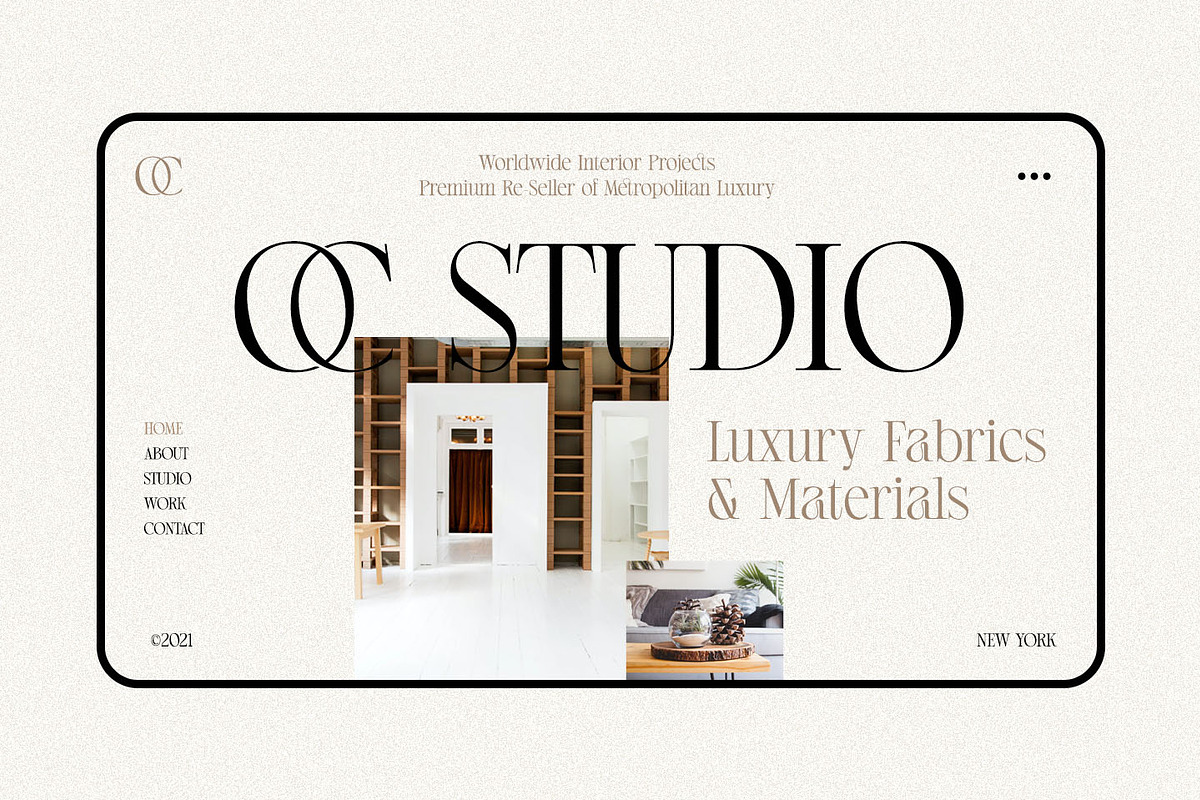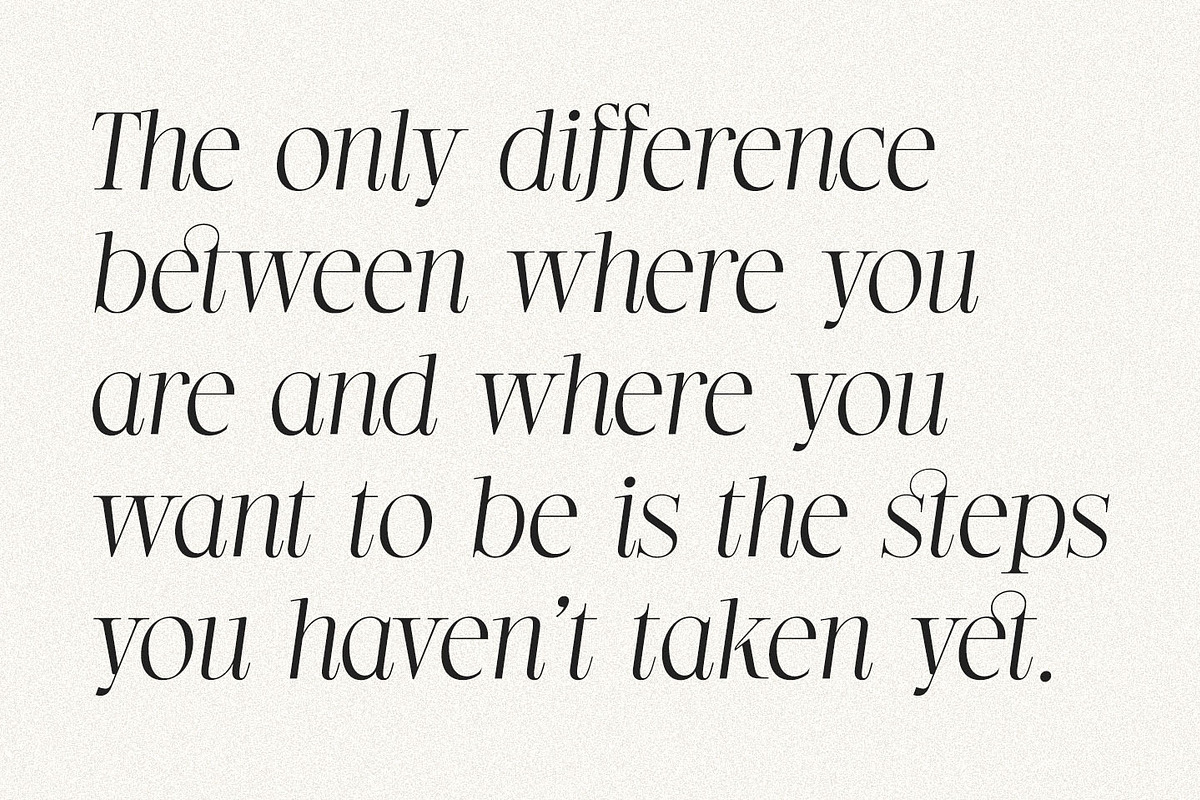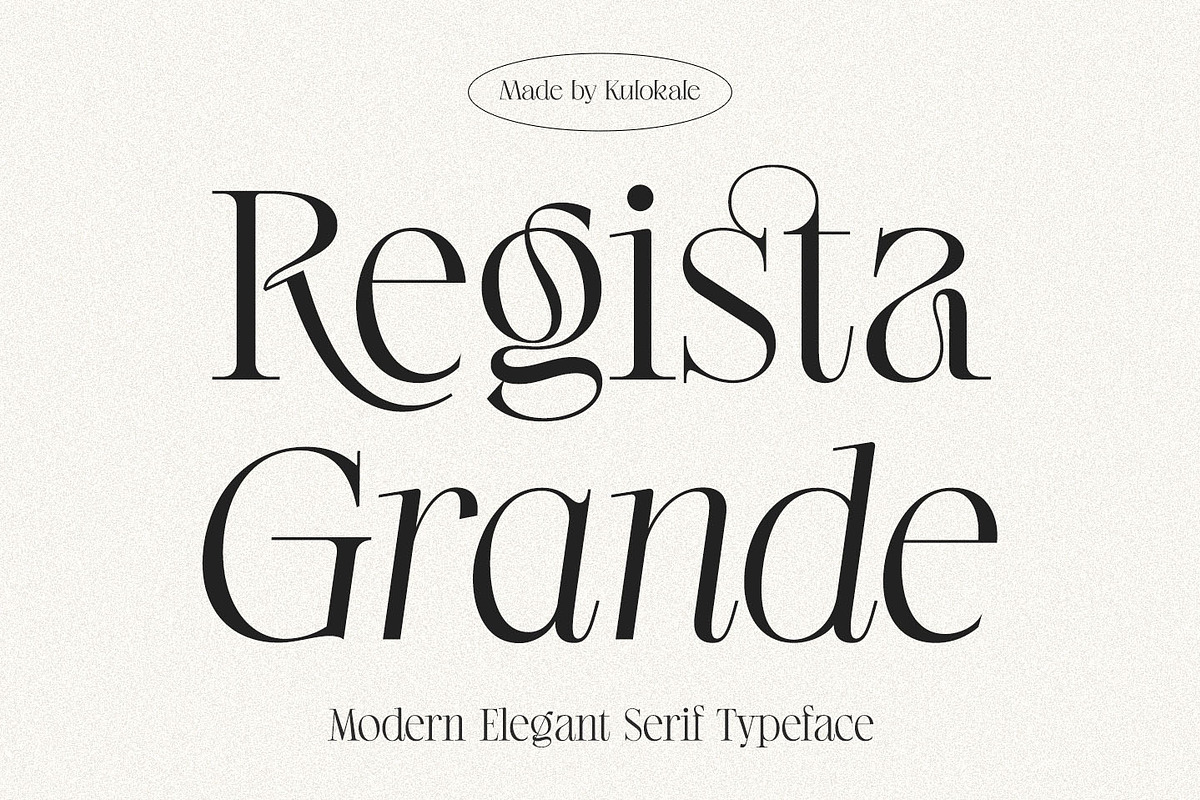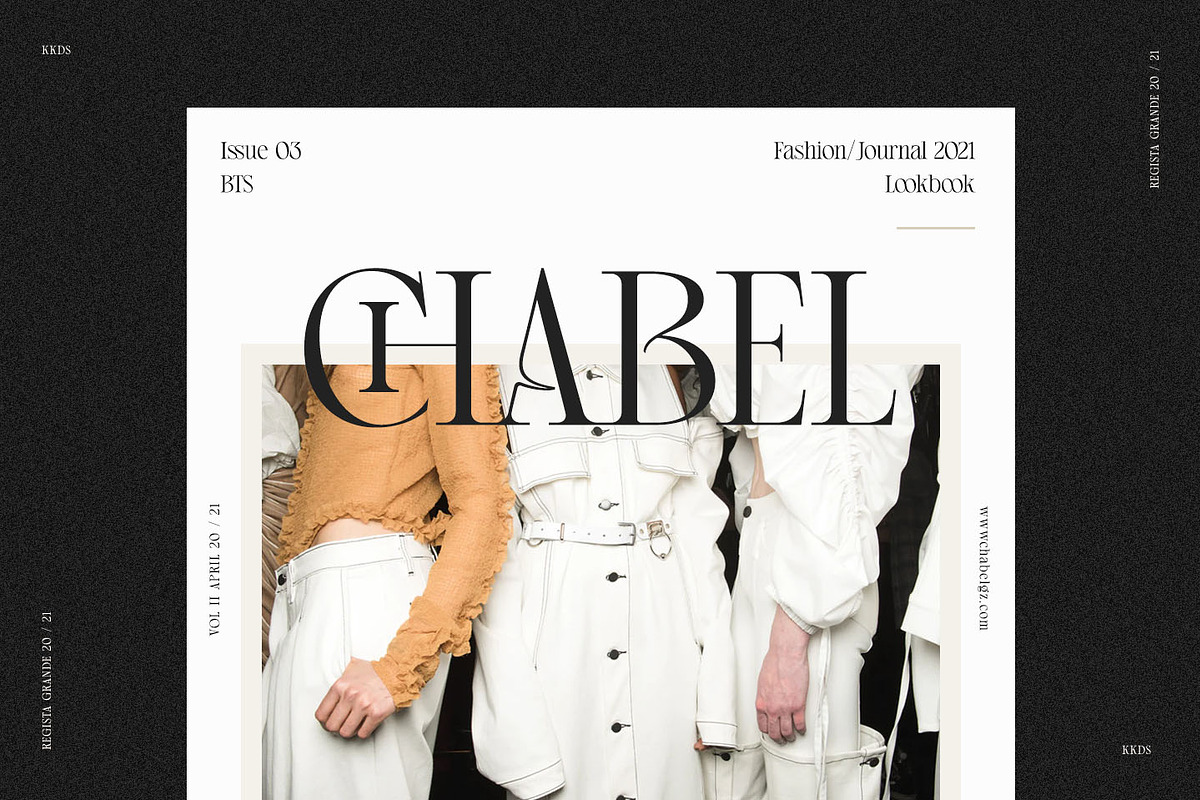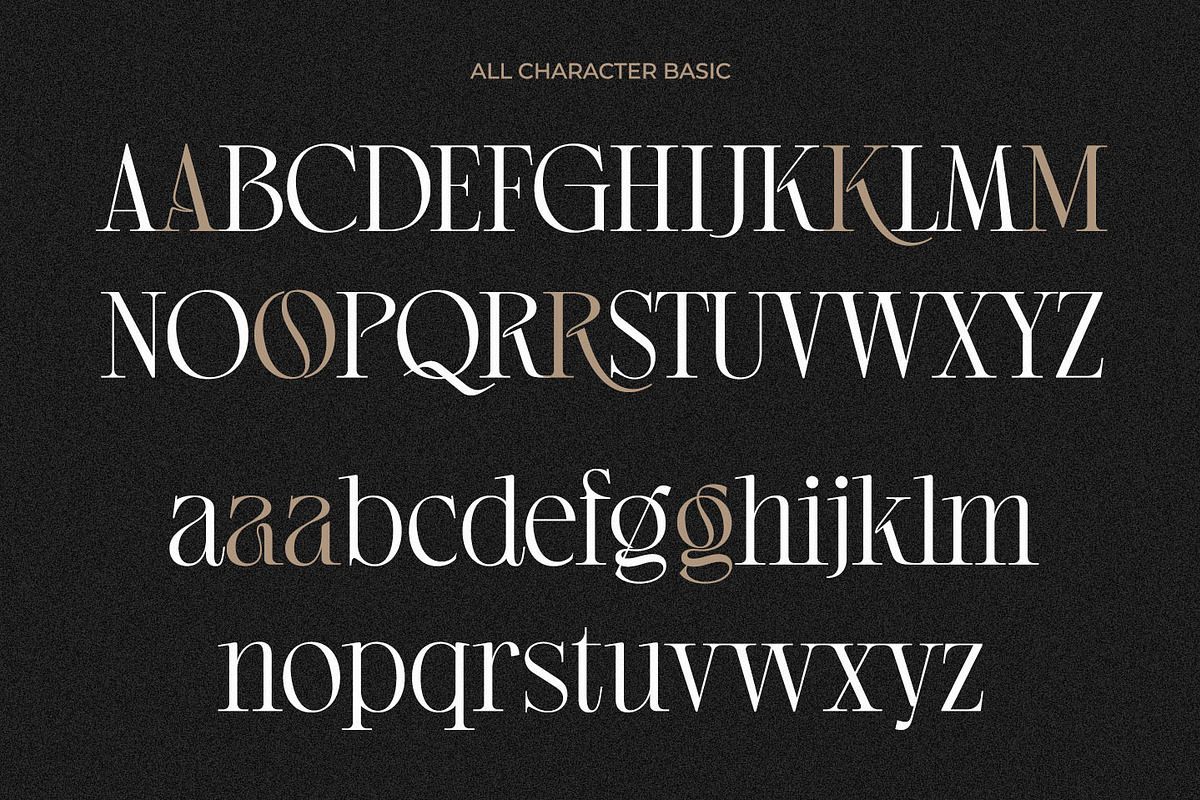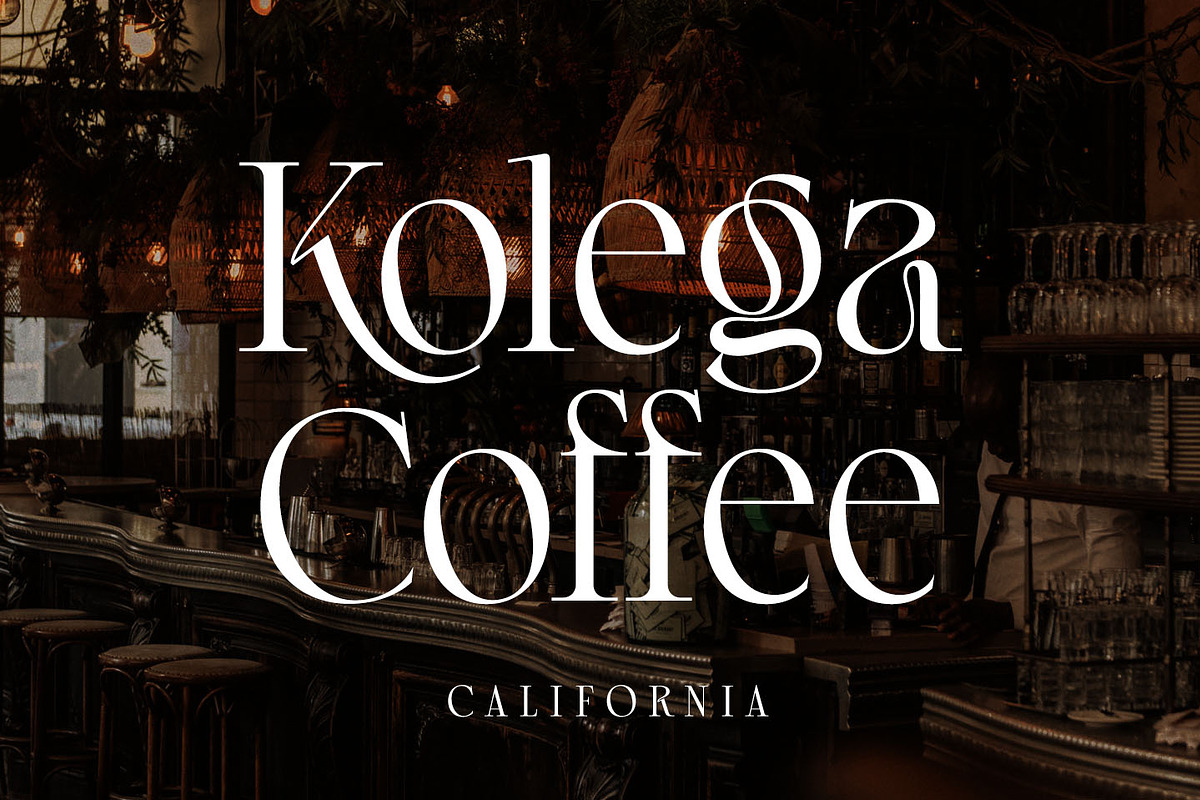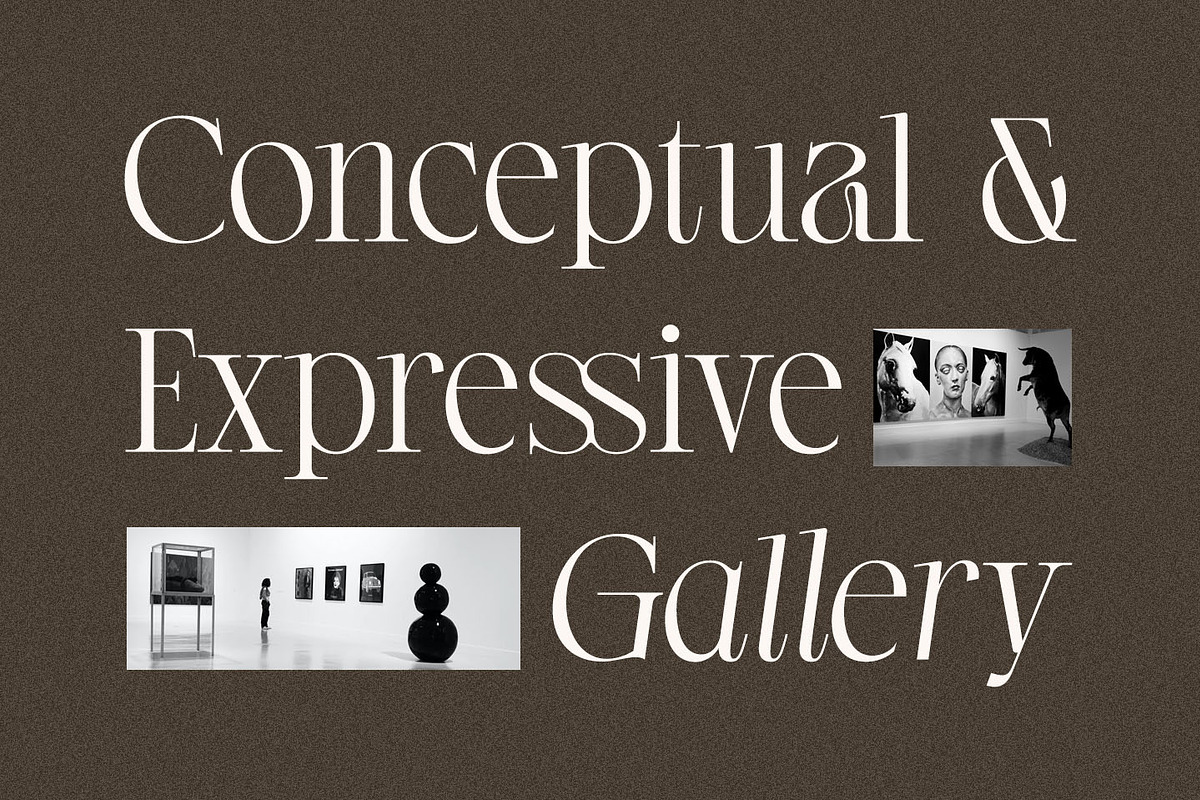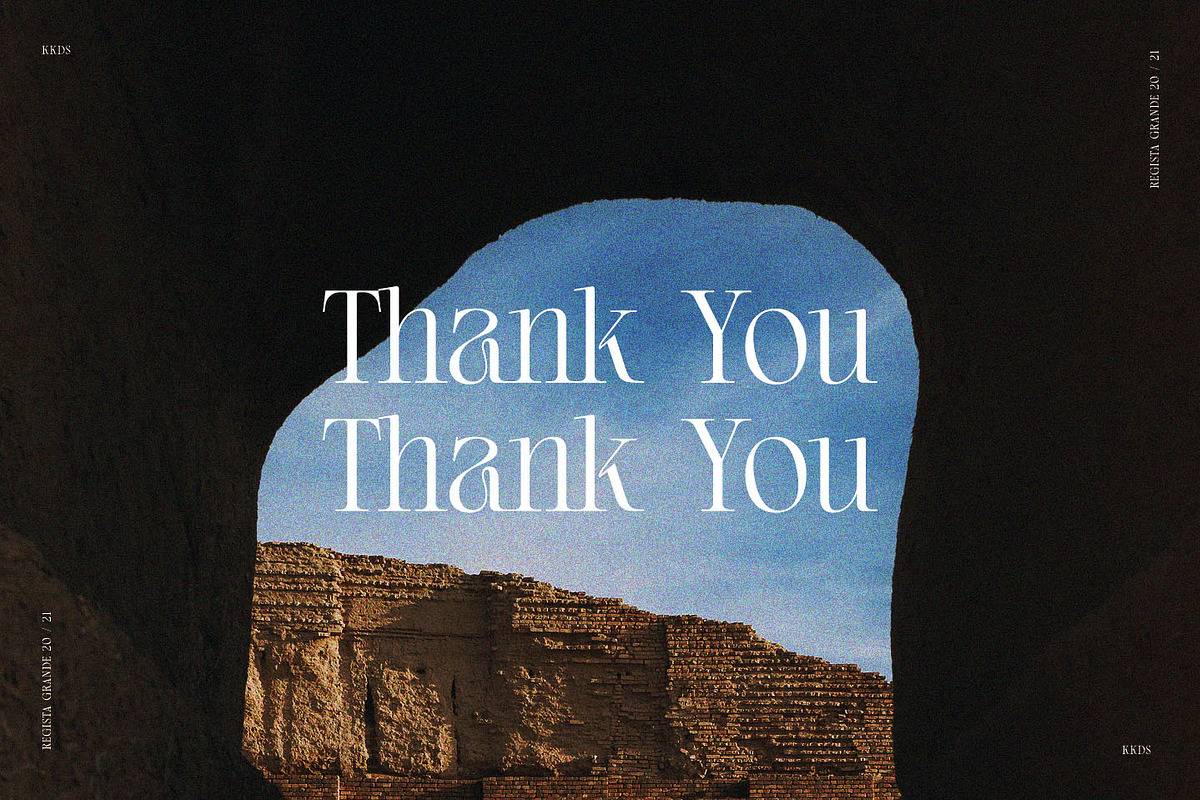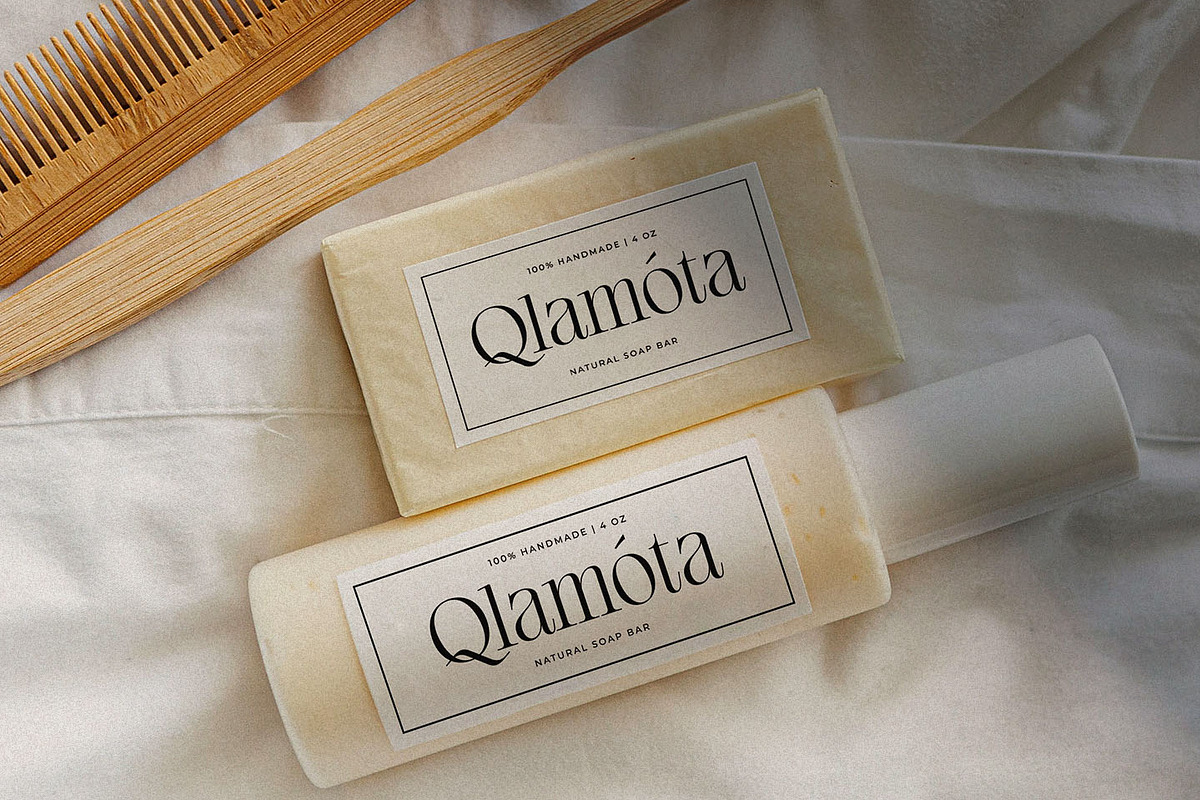
Regista Grande - Modern Serif Font
Regista Grande is a modern and elegant serif font. Regista Grande is well-suited for advertising, branding, logotypes, packaging, titles, headlines and editorial design. This font comes in two styles, Regular and Italic Version.